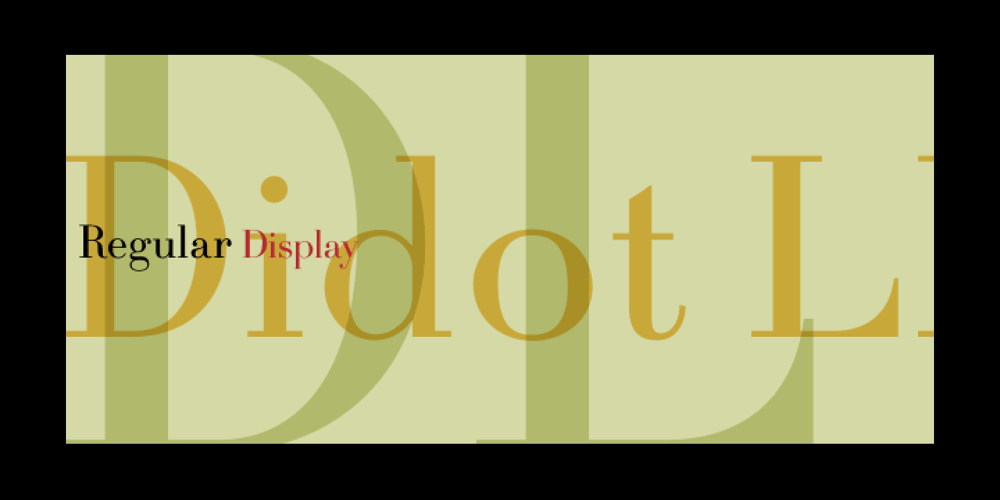
Didot LP
Didot LP font
Didot LP Font Family was designed by Firmin Didot, Garrett Boge and published by LetterPerfect. Didot LP contains 2 styles and family package options. Didot LP is a very elegant rendition of the 18th-century French typeface — Didot. This design took the earlier Italian neo-classical model (Bodoni) to a new level of refinement, with fully rationalized shapes and delicate hairlines. Didot LP accentuates these qualities, providing a classical text face with a clear and modern voice. The companion face — Didot LP Display — optimizes the proportions, spacing and hairlines for use at very large sizes.